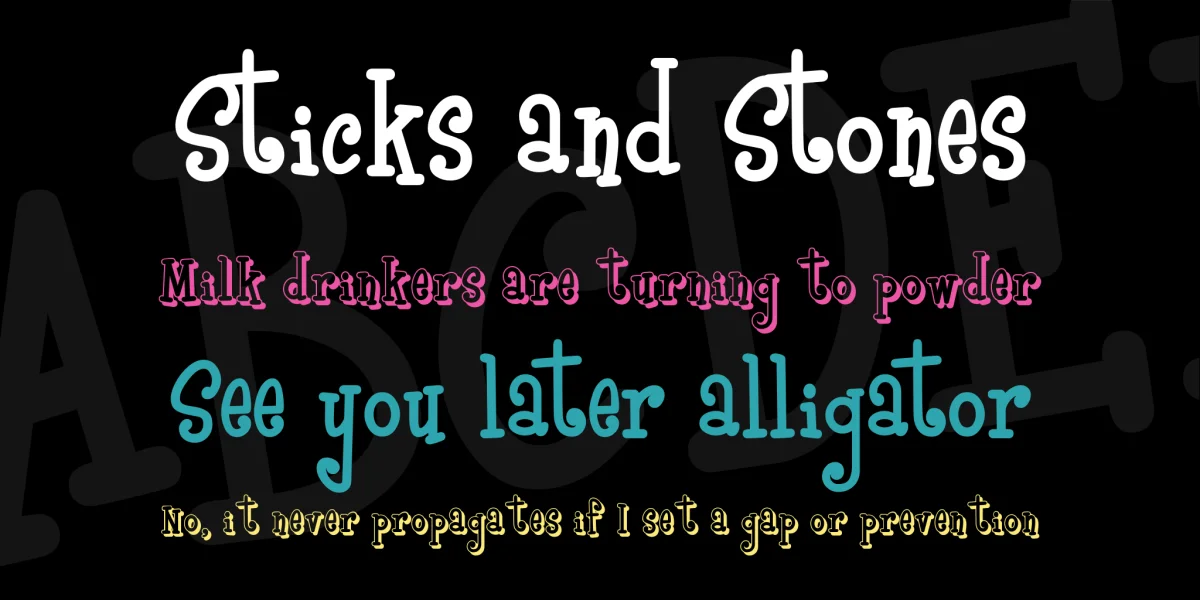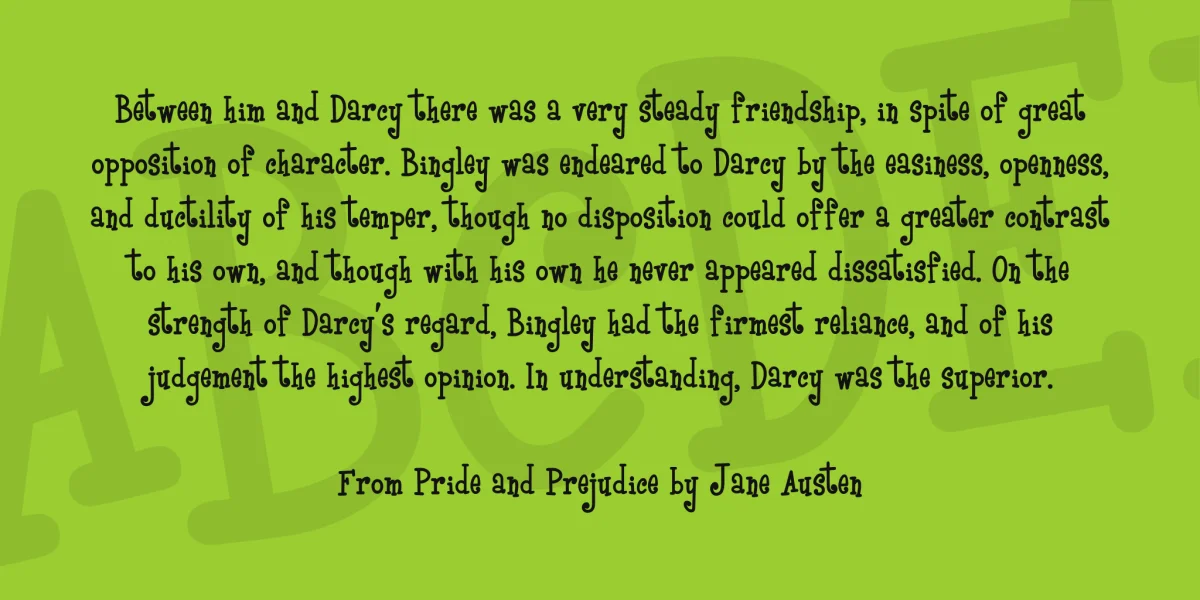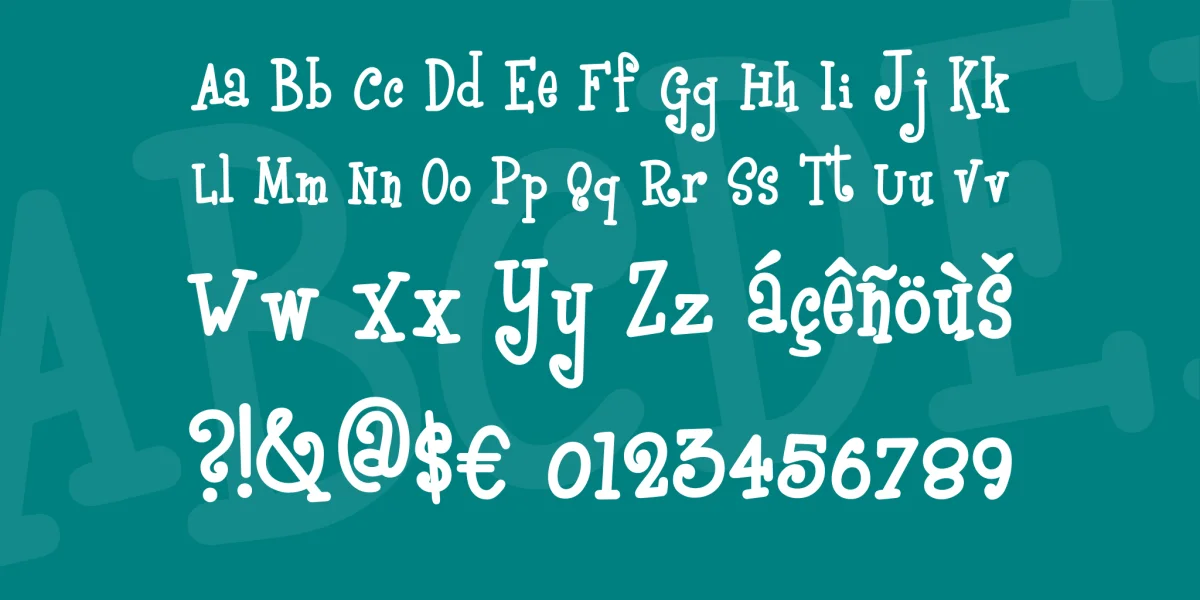
I really like Robotic Attack Fonts’ freeware offering, Girls Are Weird. Unfortunately, the original font is very light in weight, hence only usable at very large sizes. My version adds several pounds without obfuscating the font’s inimitable charm.